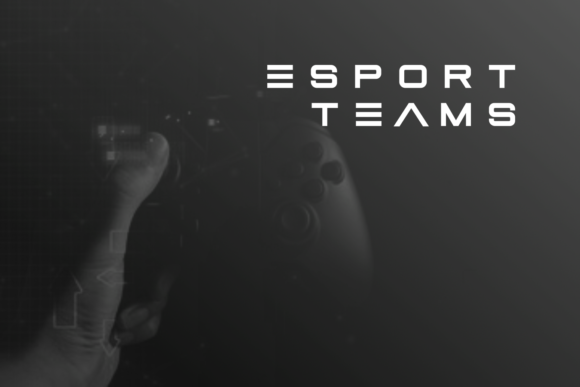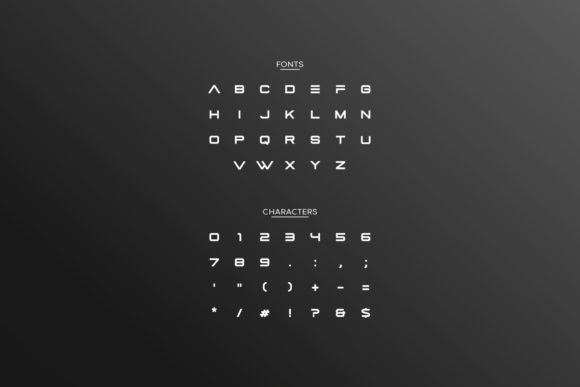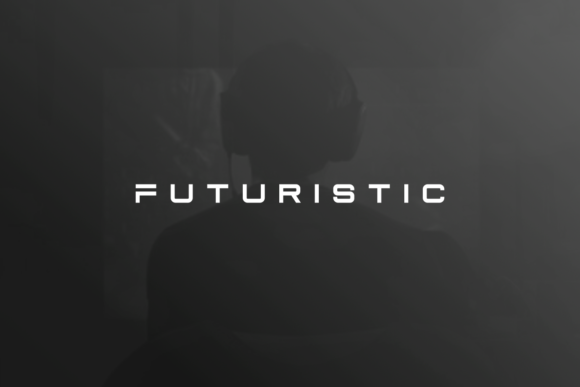
Introduction to Monue Font
Have you ever been stuck on a creative project, staring at a blank page, trying to find the perfect font to bring your idea to life? I’m sure many designers can relate to this feeling. That’s why I’m excited to introduce you to the Monue Font, a game-changing design resource that’s about to revolutionize your workflow.
With its modern, elegant, and futuristic look, the Monue Font is perfect for web designs, business cards, and any project that needs a unique touch. Its bold and contemporary version is sure to make your work stand out from the crowd. Plus, with a transparent background, you can easily layer it over your design without any hassle.
Key Features of Monue Font
- Monue Font’s unique characteristics, including its modern and elegant design, make it an excellent choice for creative projects that require a high level of sophistication.
Honest Review: Monue Font
I recently came across the Monue Font and I have to say, it’s a game-changer for any creative project. The high quality of this font is immediately apparent, making it a fantastic addition to any design resource.
- Great for creative projects
Overall, I’m impressed with the Monue Font. While it may not be perfect, its strengths far outweigh its weaknesses. If you’re looking for a high-quality design resource for your next creative project, I highly recommend giving it a try.
Tips for Getting the Most Out of Monue Font
For the best results, use Monue Font on a high-quality design project with a transparent background. This will allow the font to stand out and showcase its unique characteristics. Experiment with different font sizes and styles to find the perfect balance for your creative project.
Monue Font is ideal for use in branding, marketing materials, and other creative projects where a unique and eye-catching font is desired. Its high-quality design and transparent background make it a great choice for designers looking to add a touch of sophistication to their work.